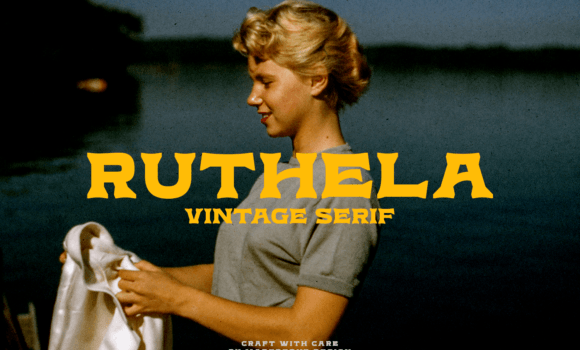
ruthela
Ruthela Font – Free Download Introduction to Ruthela Font Ruthela is a vintage font, that comes with single-weight, legible, and expressive shapes. 📸 Preview Gallery 6 images 📌 Product Name Ruthela Font 👤 Author madeDeduk 📂 Category Explore ⬇️ Download